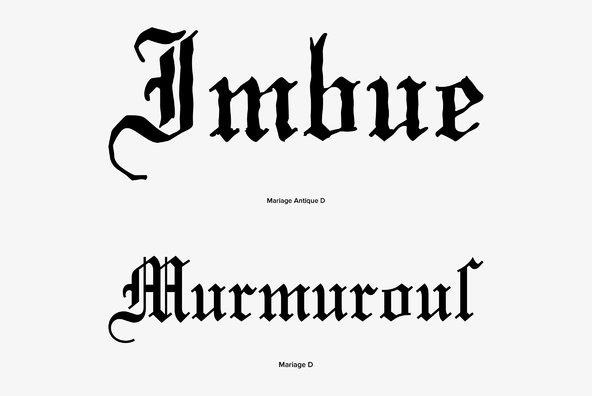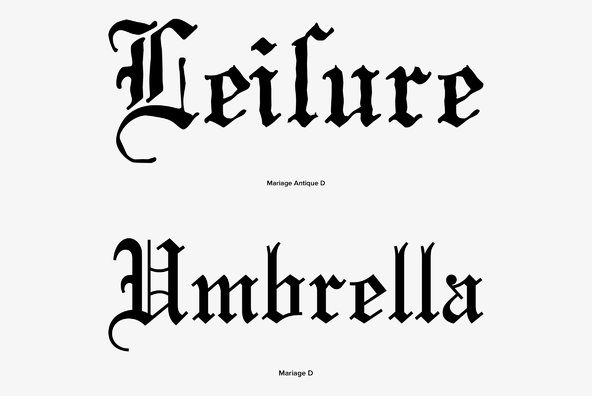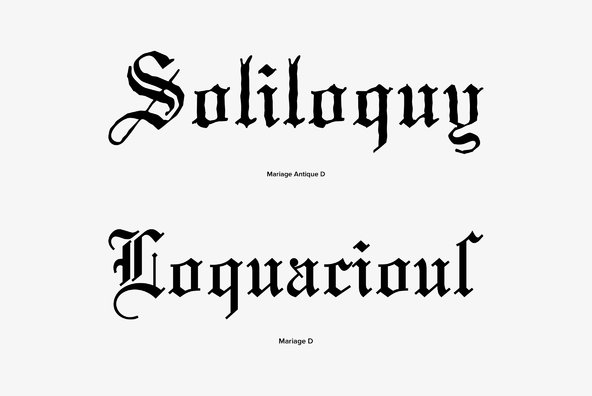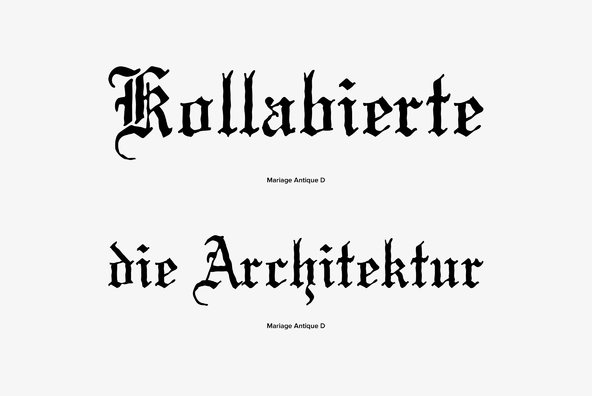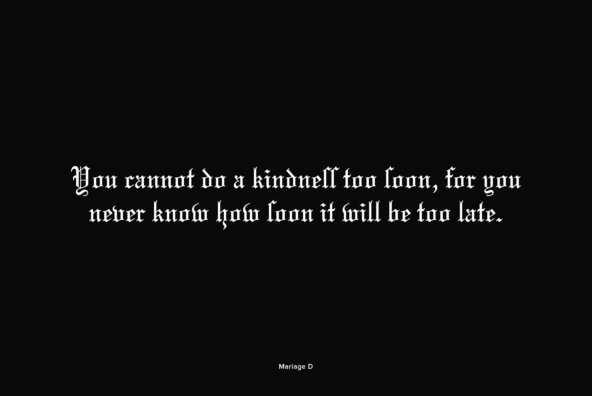
Mariage
Designed by Morris Fuller Benton in 1901, Mariage is a blackletter/gothic font release by URW. Contains language support for West, East, Turkish, Baltic, and Romanian.